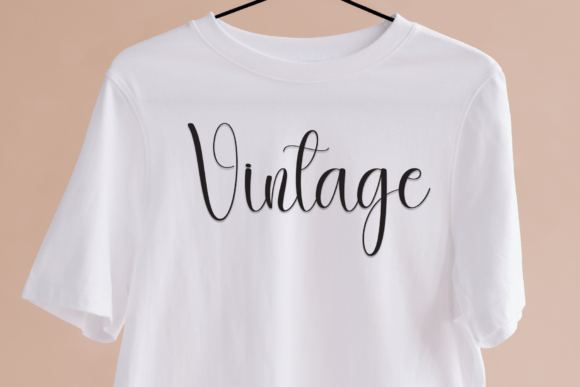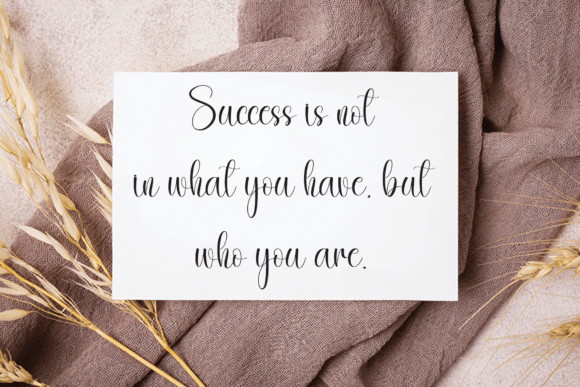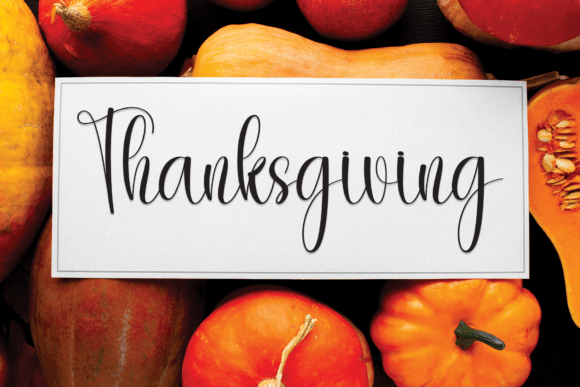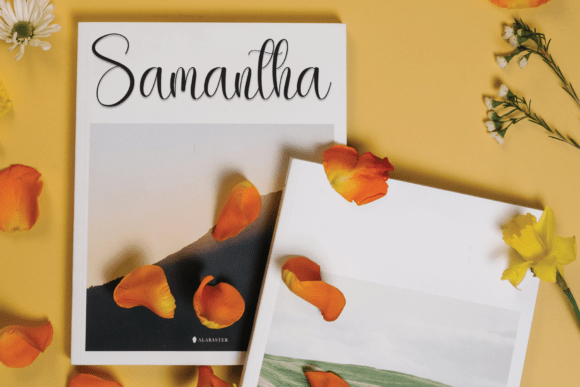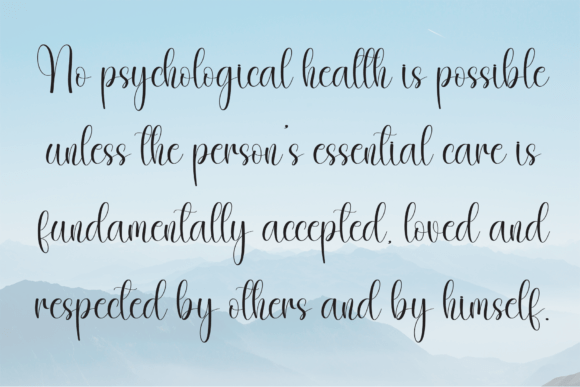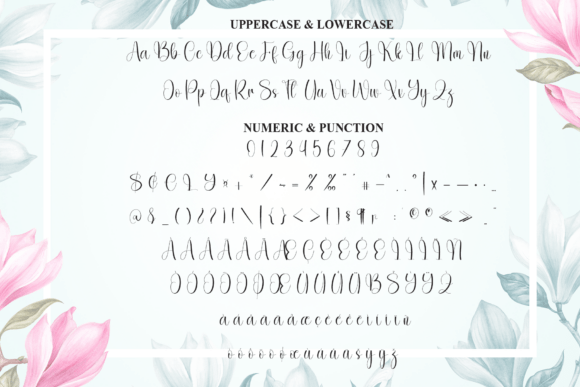
Meet Britney Font: The Charming Handwritten Display Font
Have you ever been in the middle of a design project, and suddenly, you just can’t seem to find the right font to bring your vision to life? I recall a particularly frustrating moment when I was working on a wedding invitation project, and my client requested a font that was both playful and elegant. After hours of scouring through font libraries, I stumbled upon a delightful discovery – Britney Font! This charming, handwritten display font has been a game-changer for my designs, and I’m excited to share it with you.
A Personal Review: What I Love About Britney Font
So, what makes Britney Font so special? Here are a few things that I absolutely love about it:
- ✨ Unique and quirky appeal that adds a dash of cheerfulness to any design
- ✅ Friendly and approachable vibe that’s perfect for wedding invitations, greeting cards, and more
- 💕 Beautifully crafted with attention to detail, making it a joy to use
- 🎉 Highly versatile and can be used for a wide range of design projects
While Britney Font is an amazing addition to any design project, there are a few small quirks to be aware of:
- 🤔 May not be suitable for body text due to its decorative nature
- ⚠️ Some characters may not be suitable for use at very small font sizes
Britney Font was inspired by the classic handwritten fonts of the past, with a modern twist. The designer aimed to create a font that was both friendly and elegant, perfect for designs that require a personal touch.
| What type of designs is Britney Font best suited for? | Britney Font is ideal for designs that require a friendly and approachable vibe, such as wedding invitations, greeting cards, and more. |
| Can I use Britney Font for body text? | While Britney Font is a beautiful font, it’s not recommended for body text due to its decorative nature. |